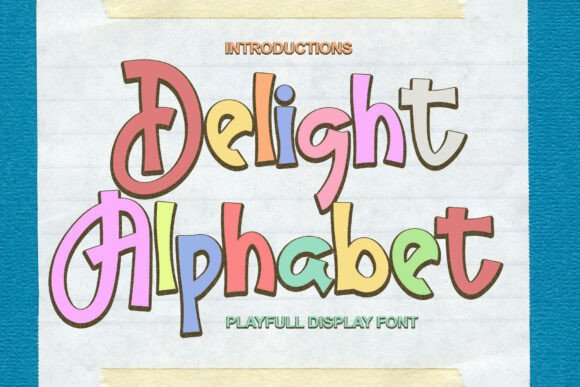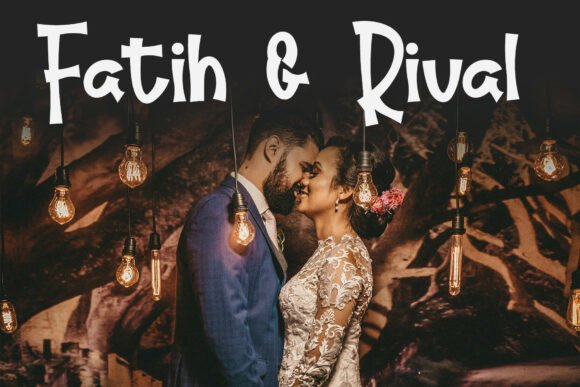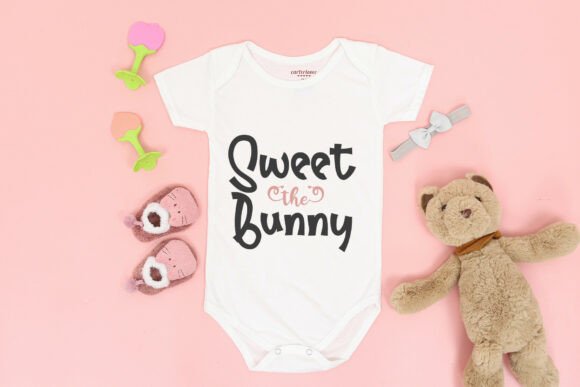
Delight Alphabet Font
About the Delight Alphabet Font
Get ready to be inspired by Delight Alphabet Font, a fresh and dynamic typeface for modern creators. Delight Alphabet is a captivating display font that combines strength and elegance, making it perfect for bold and eye-catching designs. With its unique letterforms and a touch of mystery, this charming font adds a sense of wonder and sophistication to any project. Whether you’re aiming for a mystical, modern, or elegant look, Magical Whisper is the font that enchants and inspires.
Delight Alphabet excels in headlines, logos, and short, impactful text for branding projects. Its strong forms command attention, making it ideal for posters or packaging where a statement is needed. However, its intricate details aren’t suited to body text or UI elements requiring high legibility at smaller sizes.
The font’s personality is bold and elegant, with a touch of mystery. It works best for brands projecting sophistication and a sense of intrigue—think high-end fashion, luxury goods, or even fantasy-themed projects.
Pairing it with a clean sans-serif like Lato for body text or a more playful script font like Great Vibes for secondary elements would create a balanced and visually appealing design. Consider using a geometric sans-serif such as Montserrat for a modern and structured contrast.
Delight Alphabet Font Usage Examples
Delight Alphabet Font Example